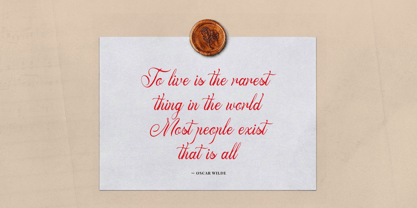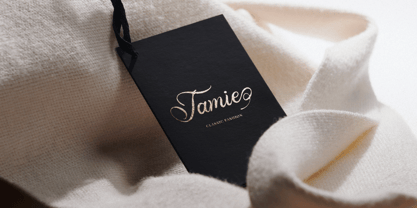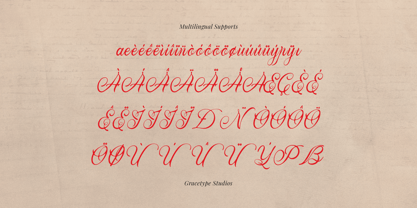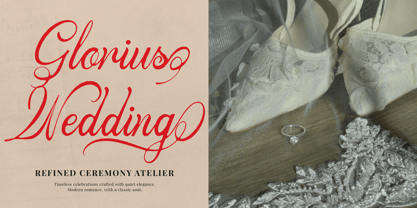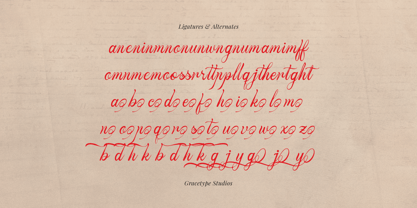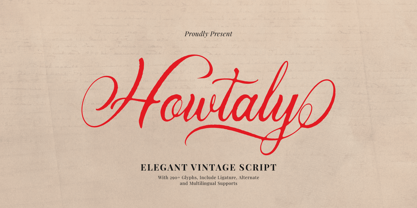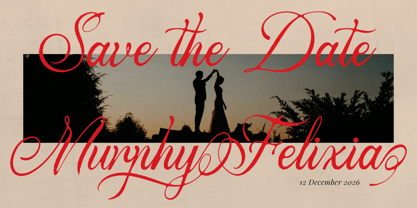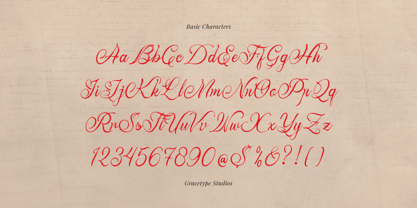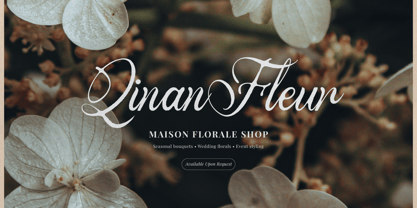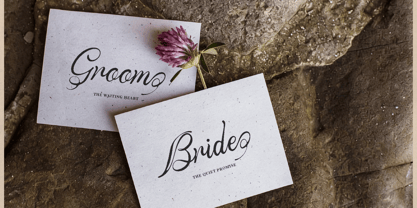
Howtaly
Die Schriftfamilie Howtaly entworfen und von Tini Fitriani veröffentlicht. Howtaly enthält 2 Stile und Familienpaketoptionen. Mehr über diese Familie
Howtaly | Elegant Vintage Script, from Gracetypestudio, suitable for any projects such as: logos, branding projects, homeware designs, product packaging, mugs, quotes, posters, shopping bags, t-shirts, book covers, name card, invitation cards, greeting cards, label, photography, watermark, special events, and all your other lovely projects that need a Script taste.